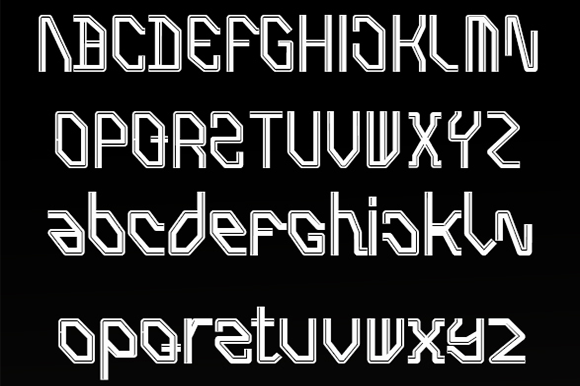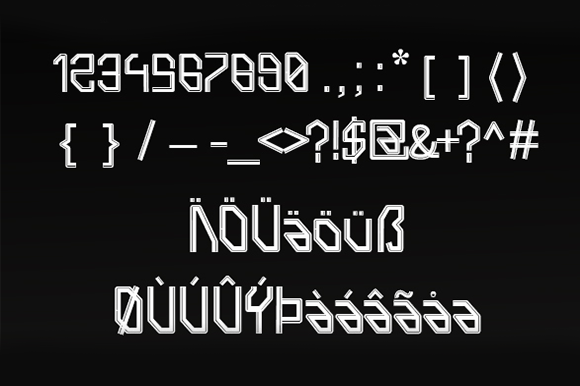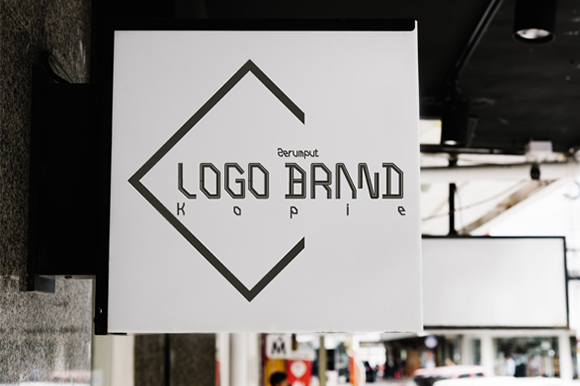
Introduction to Propatis Font
Have you ever been working on a creative project, pouring your heart and soul into it, only to feel like something’s missing? The design just isn’t popping, and you can’t quite put your finger on what’s off. That’s where the right font can make all the difference. Enter the Propatis Font, a bold and authentic display font that celebrates abstract shapes in all their eclectic brilliance.
This game-changing font is more than just a design resource – it’s a key to unlocking your full creative potential. With its unique style and high quality, it’s the perfect addition to any project looking to stand out from the crowd. Whether you’re working on a graphic design project or need a font to add some visual interest to your website, the Propatis Font is sure to deliver.
Key Features of Propatis Font
- Unique design: Propatis Font features a unique and modern design, making it an excellent choice for creative projects that require a touch of sophistication and elegance.
Honest Review: Propatis Font
As a designer, I’m always on the lookout for high-quality design resources that can elevate my creative projects. Recently, I stumbled upon the Propatis Font, and I’m excited to share my honest review with you.
What works well: ✨ The Propatis Font is a versatile and modern sans-serif font that’s perfect for a wide range of creative projects. It’s available for free download, making it an excellent design resource for designers on a budget. The font is highly legible and comes with a transparent background, making it easy to use with different backgrounds and designs.
- Highly legible and versatile
- Comes with a transparent background
Overall, I’m impressed with the Propatis Font and would definitely recommend it to designers looking for a high-quality, free design resource. It’s perfect for personal projects or small-scale commercial projects, and its transparent background makes it easy to use with different designs.
The Propatis Font is commonly used for creative projects such as logos, business cards, and brochures. It is also used for presentations, documents, and other design materials. The font’s high-quality design and transparent background make it a great choice for any creative project.